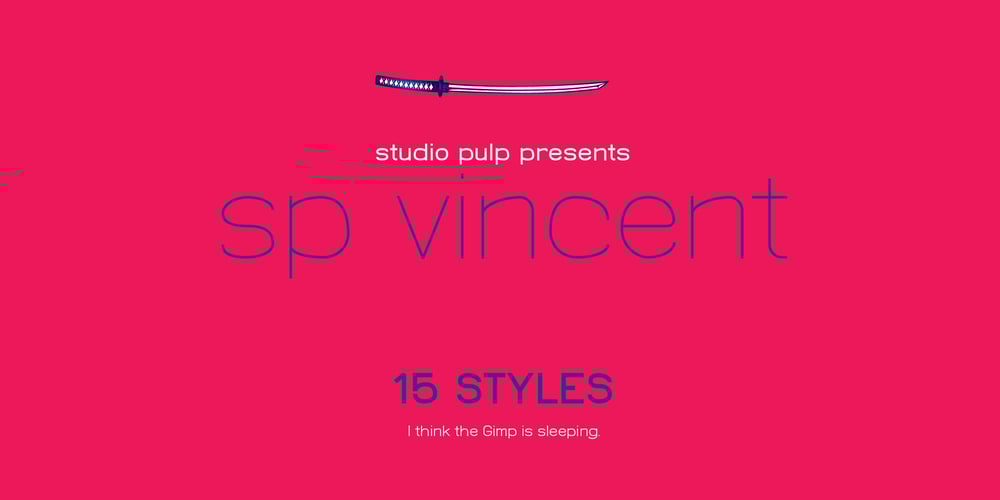
SP Vincent Font Family was designed by Roel Dierckens and published by Studio Pulp. SP Vincent contains 15 styles and family package options. Discover the captivating charm of SP Vincent, a masterfully crafted display font developed in 2023 by Studio Pulp. Inspired by the iconic character Vincent Vega, the central figure in the film classic “Pulp Fiction” (1994), this typeface exudes a powerful and refined aesthetic, befitting a leading role. SP Vincent, with meticulous attention to detail and craftsmanship, showcases versatility that seamlessly complements a variety of design projects, especially excelling in the creation of impressive titles. The three well-balanced weights provide you with the flexibility to unleash your creativity, while the clear, open shapes optimize readability. Anchored in a sleek grid design, SP Vincent embodies modern minimalism and accessible elegance. Whether you are engaged in web design, graphic design, or print materials, this font adds a timeless class to your creations. Be inspired by the seamless blend of functionality and aesthetics in SP Vincent. Specifically designed to meet the demands of 2023, this font brings a contemporary flair to your projects while remaining faithful to Studio Pulp’s commitment to quality and innovation. Transform your typographic landscape with SP Vincent and leave a lasting impression reminiscent of the unforgettable moments from “Pulp Fiction.”